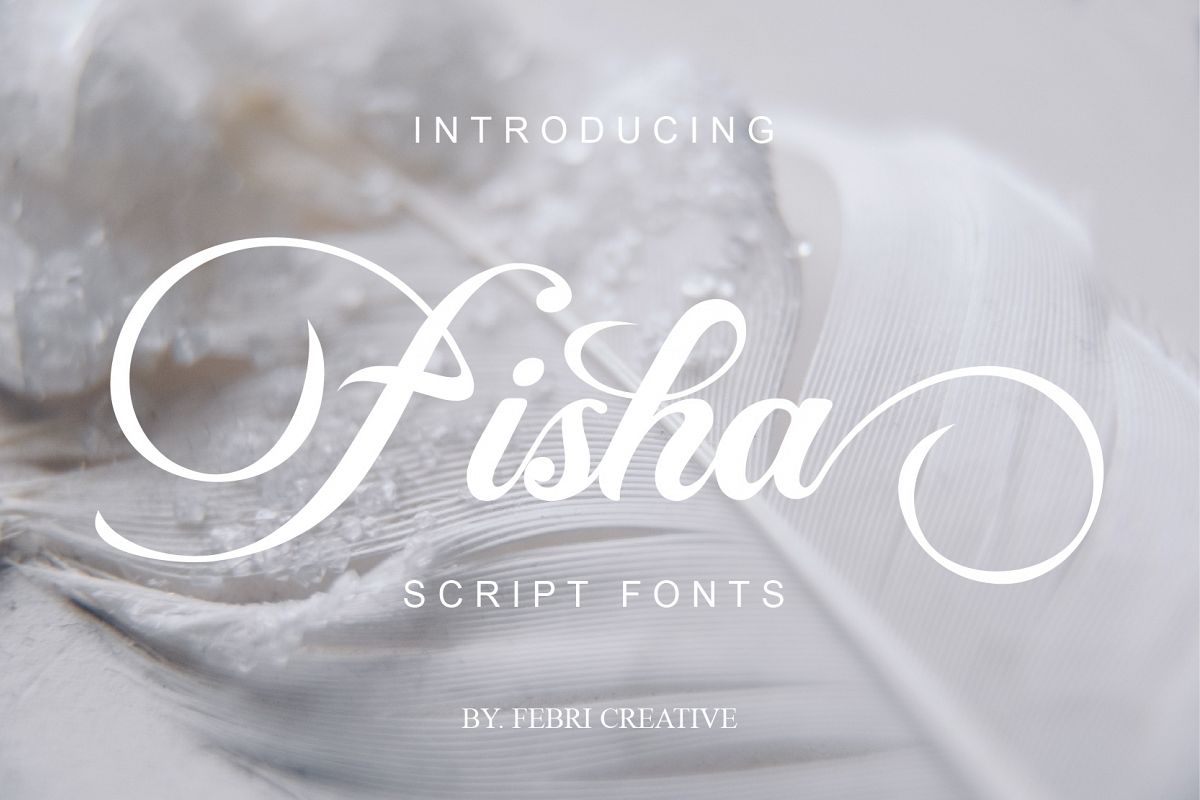
Fisha Script
Fisha Script is a modern and awesome handwriting font with extraordinary charm. This will change any design idea to be beautiful and perfect! Can be used as a logo, branding, or just writing. It supports multilingual languages with many alternative styles, which you can combine into great designs.What's Included?